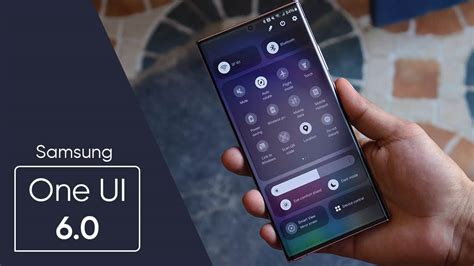
Samsung One UI Font: Personalize Your Galaxy Device
Hey there, Galaxy enthusiasts ! Ever looked at your phone and thought, “Man, I wish this text looked a bit… different?” Well, guess what, guys? You’re in luck! Today, we’re diving deep into the world of Samsung One UI Font , a crucial, yet often overlooked, element that can totally transform your daily smartphone experience. We’re talking about more than just changing a typeface; we’re talking about making your Galaxy device truly yours , from the way you read messages to how you browse your favorite apps. This isn’t just about aesthetics; it’s about optimizing readability , enhancing your personal style, and ensuring your phone feels as unique as you are. So, grab a snack, settle in, and let’s explore how the Samsung One UI Font can elevate your entire mobile journey. We’re going to cover everything, from understanding what this font actually is, to mastering all the cool customization tricks available right at your fingertips. Get ready to unleash the full potential of your Galaxy device’s visual appeal and make every interaction more enjoyable and efficient. Whether you’re a seasoned Samsung user or just got your first Galaxy, understanding and leveraging your font options is a game-changer. It’s time to stop settling for the default and start expressing yourself through the very letters on your screen. So, let’s get this personalization party started and discover all the amazing things you can do with the Samsung One UI Font to create an interface that truly reflects your individual taste and needs. Trust me, once you start tweaking, you’ll wonder how you ever lived without it. This is your chance to really make your phone pop and feel like an extension of your own personality.
What is Samsung One UI Font? Your Gateway to a Better Look
Alright, let’s kick things off by properly introducing our star player: the Samsung One UI Font . You know, for many years, Android phones often felt a bit… generic, especially when it came to their system fonts. They typically relied on the standard Roboto typeface, which is fine, don’t get me wrong, but it didn’t really scream “premium” or “unique.” That all started to change when Samsung introduced its custom typeface, SamsungOne , and even more significantly, when they launched One UI . With One UI, Samsung didn’t just redesign the user interface; they also brought a refined, dedicated font that perfectly complements the entire aesthetic. The Samsung One UI font is designed to be incredibly readable , super clean , and visually appealing across all of their devices, from the smallest Galaxy A series to the top-tier Galaxy S and Z Fold lines. It’s not just a random font; it’s meticulously crafted to ensure optimal legibility, even at smaller sizes or in varying light conditions. Think about it: every single piece of text you see on your phone – from app names to menu options, notifications, and even your keyboard – uses this font. Its clarity and balanced design are key to the seamless, intuitive user experience that Samsung aims for with One UI. Samsung’s design philosophy behind this font focuses on human-centricity , meaning it’s all about making your interaction with the device as comfortable and natural as possible. They’ve really considered how we read on screens, minimizing eye strain and maximizing information retention. This dedication to detail is why the Samsung One UI font feels so native and ‘right’ on your Galaxy device. It’s part of the cohesive design language that makes Samsung phones stand out. Understanding what the Samsung One UI font is and why it was chosen is the first step in appreciating its impact and then, of course, taking control of your personalization journey . It’s a foundational element that underpins your entire visual experience on your Galaxy, and once you grasp its significance, you’ll be much better equipped to customize it to your heart’s content. This isn’t just some background detail; it’s a vital part of what makes your Samsung device a pleasure to use every single day. So, yeah, it’s pretty important, guys! It’s the visual backbone of your mobile life, and getting it right can make a huge difference in how you perceive and interact with your powerful Galaxy smartphone.
Why Font Matters: The Impact of Your Samsung One UI Font Choice
Okay, so we’ve talked about what the Samsung One UI Font is, but let’s get real for a sec: why does any of this even matter ? Why should you care about the font on your phone? Well, guys, it’s a bigger deal than you might think! Your font choice isn’t just about making your phone look pretty; it profoundly impacts everything from readability and accessibility to your overall mood and even how quickly you can process information. Think about it: you stare at your phone’s screen for hours every single day. Every text message, every email, every social media post, every article – it all comes to you via the chosen typeface. If the font is hard to read, too small, too cramped, or just plain unpleasant, it can lead to eye strain, fatigue, and a generally frustrating experience. This is why the default Samsung One UI font is so carefully designed for maximum legibility. But personal preference plays a huge role here too. What one person finds perfectly clear, another might struggle with. This is where the power of changing your Samsung One UI font comes into play. By selecting a font that genuinely resonates with you, you’re not just customizing a setting; you’re actively enhancing your daily interaction with your most-used device. A good font makes reading effortless, allowing you to absorb content without conscious effort on deciphering the letters. For those with visual impairments, or even just tired eyes after a long day, choosing a bold or slightly larger font can be a game-changer for accessibility . Moreover, fonts carry a certain personality . Some are playful, some are professional, some are modern, and others are classic. Your choice of Samsung One UI font becomes an extension of your own style and personality. It’s a subtle yet powerful way to express yourself and make your phone feel truly ‘yours.’ It adds a layer of customization that goes beyond just wallpapers and icon packs, delving into the very fabric of how information is presented to you. When you’re proud of how your phone looks and feels, it just makes the entire experience more enjoyable, doesn’t it? So, don’t underestimate the humble font. It’s a silent workhorse, shaping your perception and interaction with your Galaxy device every single moment. Taking the time to pick the right Samsung One UI font for you is an investment in your comfort, your efficiency, and your personal digital well-being. It’s one of those little details that can make a surprisingly big difference in your everyday tech life. Really, guys, it’s about making your phone work for you, not against you, in every single visual aspect. So, let’s explore how you can wield this power!
Customizing Your Samsung One UI Font: A Step-by-Step Guide
Alright, you’re convinced that your Samsung One UI font matters, and now you’re itching to make some changes. Excellent! This is where the fun really begins, guys. Samsung has made it incredibly straightforward to tweak your font settings right from your Galaxy device. You don’t need any super technical skills or dodgy third-party apps for the basics, which is awesome. Let’s walk through it, step-by-step, so you can start customizing your Galaxy device’s typography right away. The main hub for all your font magic is nestled deep within your phone’s display settings. So, first things first, open up your ‘Settings’ app . You can usually find this by swiping down from the top of your screen to open the quick panel and tapping the gear icon, or by finding the ‘Settings’ app in your app drawer. Once you’re in ‘Settings,’ you’ll want to tap on ‘Display.’ This is where all the visual goodies live – brightness, screen timeout, navigation bar, and, of course, your font options! Within the ‘Display’ menu, look for and tap on ‘Font size and style.’ This is your gateway to font customization heaven. Here, you’ll see a few immediate options. You can easily adjust the ‘Font size’ using a slider. Play around with this until you find a size that’s perfectly comfortable for your eyes. Remember, what’s good for one person might be too big or too small for another, so don’t be afraid to experiment! Below the size slider, you’ll find a toggle for ‘Font bold.’ Toggling this on will make all text appear bolder, which can significantly improve readability for some users, especially if you have a slight vision impairment or just prefer a stronger visual presence for your text. Give it a try; you might be surprised how much of a difference it makes. Now, for the exciting part: changing the actual typeface! Tap on ‘Font style.’ This is where you’ll see a list of pre-installed fonts, which typically include ‘Default,’ ‘SamsungOne,’ ‘Gothic Bold,’ and sometimes a few others depending on your region and device model. You can tap on any of these to see an instant preview of how your system text will look. But wait, there’s more! If these pre-installed options aren’t sparking joy, you can tap on ‘Download fonts’ . This will take you directly to the Galaxy Store , Samsung’s official app store, which has a dedicated section for fonts. Here, you’ll find a vast selection of both free and paid fonts from various designers. Browse through them, check out the previews, and when you find one you like, simply download it. Once downloaded, it will appear in your ‘Font style’ list, ready for you to select and apply. It’s truly that simple, guys! Just a few taps, and you can completely refresh the look and feel of your Galaxy device. Remember to always stick to the official Galaxy Store for downloading fonts to ensure compatibility and security. While third-party font apps exist, they can sometimes cause issues or not work as seamlessly with One UI, so it’s best to use Samsung’s native solutions for the smoothest experience. Take your time, explore the options, and find the perfect Samsung One UI font that makes your phone feel truly yours .
Beyond the Basics: Advanced Samsung One UI Font Customization Tips
So, you’ve mastered the basics of changing your Samsung One UI font and picked a style you love from the Galaxy Store. Awesome! But if you’re like me, you probably want to know if there’s even more you can do, right? You’re looking to push the boundaries of font customization on your Galaxy device. Well, you’re in luck, because there are a few extra tricks up our sleeves to really personalize your experience, going beyond just the standard ‘Font size and style’ menu. While Samsung provides fantastic native options, some advanced users might crave even deeper control or unique aesthetic integrations. First off, let’s talk about Good Lock . If you haven’t explored Samsung’s Good Lock app, you’re seriously missing out, guys! It’s a suite of powerful customization modules developed by Samsung itself, designed to give you unparalleled control over your One UI experience. While Good Lock doesn’t have a direct ‘Font Changer’ module like some might hope, its ‘Theme Park’ module is a game-changer for overall visual consistency. With Theme Park, you can create your own themes from scratch or modify existing ones, and this includes some level of font integration within the theme itself. When you build a theme, it often takes into account your current font selection and applies it uniformly, ensuring everything looks cohesive. It’s more about the overall theming experience where your chosen Samsung One UI font plays a supporting role in the grand design. Experimenting with Theme Park allows you to ensure your preferred font doesn’t just stick out, but harmonizes with your custom color palette and iconography. Next up, let’s consider accessibility settings . These aren’t just for users with specific needs; they can offer fantastic customization for anyone looking to optimize their Samsung One UI font for readability. Head back into ‘Settings,’ then ‘Accessibility,’ and look for ‘Visibility enhancements.’ Here, you’ll find options like ‘High contrast font.’ Toggling this on can make your text significantly more distinct and easier to read, especially on busy backgrounds or for those who prefer sharper outlines. While it doesn’t change the font style, it drastically impacts how your chosen Samsung One UI font appears, enhancing its legibility in a powerful way. Another aspect of advanced customization, though one that requires a bit more technical know-how and comes with a cautionary note, is the use of third-party font apps or methods . Historically, Android allowed for various ways to install custom fonts, sometimes requiring rooting your device or using ADB commands. However, with modern One UI and Android versions, these methods are often blocked or can cause system instability. For the vast majority of users, sticking to the fonts available through the Galaxy Store is the safest and most reliable approach for Samsung One UI font customization. It ensures compatibility, security, and a seamless experience. My advice? Embrace the official tools. The Galaxy Store offers a massive selection, and combined with Good Lock and accessibility settings, you have a wealth of options to make your Samsung One UI font truly sing. The goal here is to create an interface that’s not just pretty, but supremely usable and comfortable for you . So, dive into these advanced settings and truly make your Galaxy device a personal masterpiece!
Troubleshooting Common Samsung One UI Font Issues
Okay, guys, as much as we love customizing our Samsung One UI font , sometimes things don’t go exactly as planned. It’s super frustrating when you’re trying to achieve that perfect look, and your phone decides to be stubborn, right? Don’t sweat it! Most common Samsung One UI font issues are usually simple to diagnose and fix. Let’s walk through some of the typical problems you might encounter and, more importantly, how to troubleshoot them like a pro. The most frequent hiccup is probably: “My downloaded font isn’t showing up in the ‘Font style’ list!” You’ve just found a gorgeous new font on the Galaxy Store, downloaded it, but when you go back to ‘Settings > Display > Font size and style > Font style,’ it’s nowhere to be seen. First, ensure the download completed successfully. Sometimes, a patchy internet connection can cause issues. If the download looks fine, try restarting your phone . A simple reboot often resolves minor glitches and forces the system to re-scan for new assets, including fonts. If it’s still not there, try clearing the cache of the Galaxy Store app. Go to ‘Settings > Apps > Galaxy Store > Storage,’ then tap ‘Clear cache’ and ‘Clear data’ (be aware ‘Clear data’ will log you out of the store). Then, try downloading the font again. Another common issue can be performance-related , where after changing your Samsung One UI font , your device feels a little sluggish, or apps crash more frequently. This is rare, especially with fonts from the official Galaxy Store, but it can happen if a font isn’t perfectly optimized. In this scenario, the best course of action is to revert to the default SamsungOne font . Go back to ‘Settings > Display > Font size and style > Font style’ and select ‘SamsungOne’ or ‘Default’. If the performance issues disappear, then the font was likely the culprit. You might need to uninstall that particular font. Then there’s the dreaded ‘weird characters’ or ‘missing glyphs’ problem. You’re using a cool new font, but suddenly some special characters, emojis, or even certain letters just don’t display correctly, showing up as empty boxes or odd symbols. This usually means the font you’re using doesn’t have a complete set of characters (glyphs) for all languages or symbols. Again, switching back to a standard font like ‘SamsungOne’ is the quickest fix. If you really love the problematic font, check its description in the Galaxy Store; it might specify supported languages. Finally, sometimes the ‘Font size and style’ options themselves might appear greyed out or unresponsive. This could be due to a temporary system bug. Again, a device restart is your first line of defense. If that doesn’t work, ensure your One UI software is up-to-date by checking ‘Settings > Software update.’ Major updates sometimes fix underlying system issues. Remember, guys, patience and systematic troubleshooting are key. Most Samsung One UI font issues are minor and easily fixable, so don’t get discouraged. You’ll get that perfect, personalized look on your Galaxy device in no time!
The Future of Samsung One UI Font: What’s Next?
Alright, we’ve explored the present and even delved into troubleshooting, but what about the future, guys? Where is the Samsung One UI font headed? Technology, especially in the mobile space, is always evolving at a lightning-fast pace, and typography is no exception. We can definitely expect Samsung to continue refining and enhancing its font offerings, pushing the boundaries of what’s possible for on-screen readability and personalization . One major trend we’re seeing across the tech landscape is the increasing integration of AI-driven features . Imagine a future where your Galaxy device’s Samsung One UI font automatically adjusts based on your reading habits, ambient light, or even your mood! This could mean dynamic font weighting, subtle size changes, or even color adjustments to reduce eye strain throughout the day. Picture an AI that suggests new, highly compatible fonts based on your chosen wallpaper or icon pack, ensuring a perfectly cohesive and visually pleasing theme. Beyond smart adjustments, we might see an expansion of truly dynamic fonts . These aren’t just static typefaces; they’re fonts that can adapt and morph in real-time. For instance, a dynamic Samsung One UI font could subtly change its stroke thickness or spacing as you zoom in or out, maintaining optimal clarity at every scale. This kind of sophistication would be a huge leap forward for accessibility and user comfort , making text on your Galaxy device more adaptable than ever before. We could also anticipate a deeper integration with design systems . As Samsung continues to evolve One UI, the font will likely become an even more intrinsic part of the overall design language, offering developers more tools to ensure that third-party apps also respect and align with the user’s chosen Samsung One UI font . This would mean a seamless visual experience across all your apps, eliminating those jarring shifts when moving from a system setting to a downloaded application. Furthermore, the Galaxy Store’s font selection will undoubtedly continue to grow. We might see more curated collections, exclusive designer collaborations, or even tools for users to create and upload their own fonts (with proper vetting, of course!) to share within the Samsung ecosystem. This would truly empower users to take personalization to an unprecedented level. Ultimately, the future of the Samsung One UI font is about more than just new styles; it’s about a more intelligent, adaptable, and deeply integrated typographic experience that puts the user’s needs and preferences front and center. It’s an exciting prospect, promising an even more delightful and comfortable interaction with our beloved Galaxy devices. So, keep an eye out, because the next generation of Samsung One UI font trends is bound to be absolutely amazing, making your daily tech interactions even more tailored and enjoyable! The journey of font evolution is ongoing, and Samsung is definitely at the forefront of this exciting development.
Alright, guys, we’ve reached the end of our deep dive into the awesome world of the Samsung One UI Font ! What a journey, right? We started by understanding what this essential typeface is all about, appreciating its careful design for optimal readability and its role in creating a cohesive One UI experience on your Galaxy device. We then explored why font matters so much , realizing that it’s not just about aesthetics but also about accessibility , personal expression, and even your daily comfort and interaction with your phone. From there, we walked through the straightforward steps to customize your Samsung One UI font , showing you how to change styles, adjust sizes, and even download new options from the official Galaxy Store – all designed to make your device feel uniquely yours . We even touched upon some advanced tips, leveraging tools like Good Lock’s Theme Park to ensure your font choices integrate seamlessly with your overall themes, and how accessibility settings can further enhance your visual experience. And because things don’t always go perfectly, we covered common Samsung One UI font issues and shared practical troubleshooting tips to get you back on track without a hitch. Finally, we peered into the crystal ball, speculating on an exciting future where AI-driven dynamic fonts and even deeper integration could redefine how we interact with text on our Galaxy devices . The main takeaway here, guys, is that your Samsung One UI font is a powerful tool for personalization . It’s not just a default setting you have to live with; it’s an opportunity to make your phone truly reflect your personality and cater to your specific visual needs. So, I encourage all of you: don’t settle for the standard. Take a few minutes, explore the settings, download some new fonts, and play around with the options. Find the perfect Samsung One UI font that not only looks great but also makes every single interaction with your phone more comfortable, efficient, and enjoyable. You deserve a phone that feels like an extension of you, and customizing your font is one of the easiest and most impactful ways to achieve that. Go forth and personalize, my friends – your Galaxy device is waiting to be transformed!